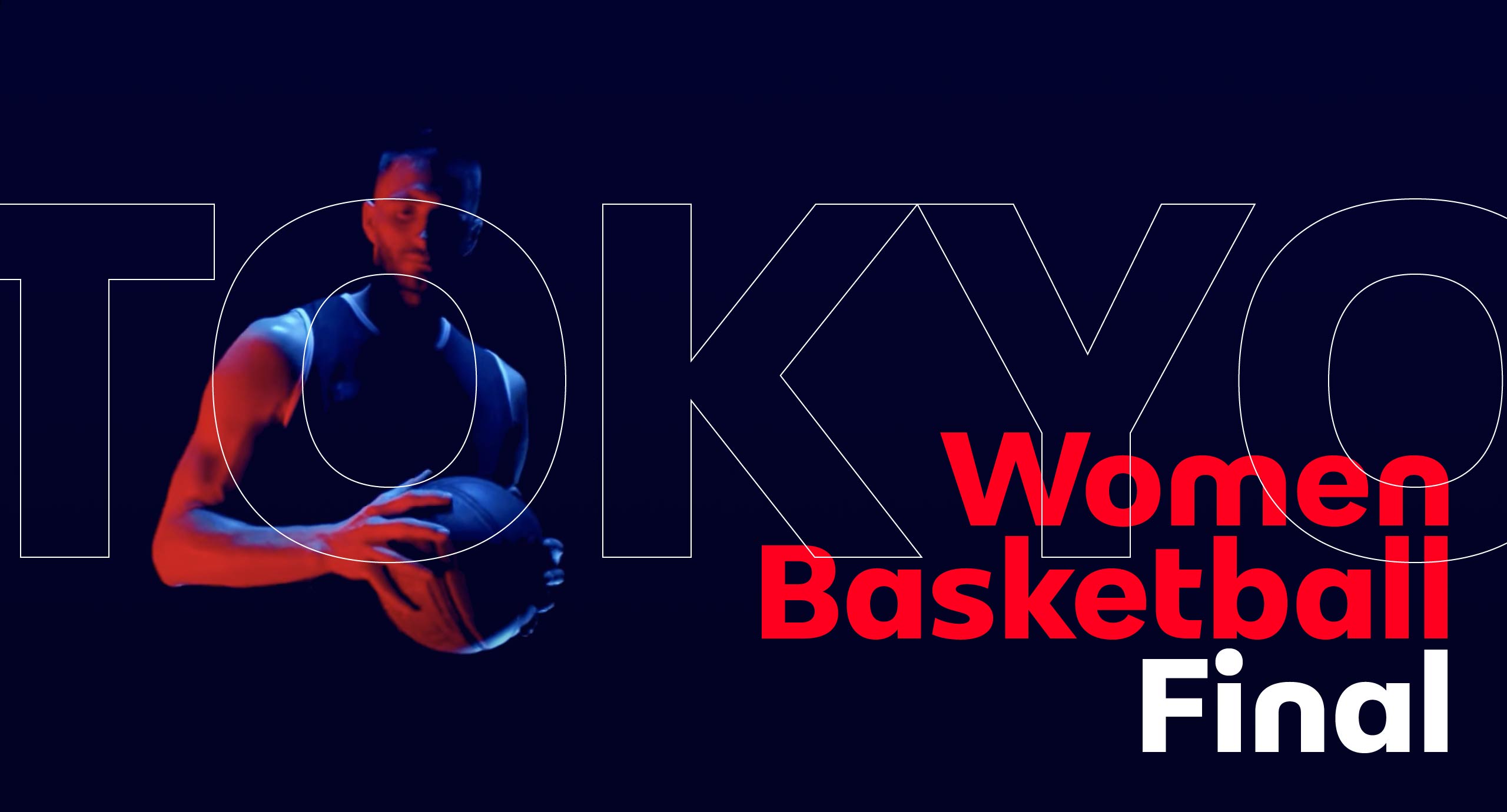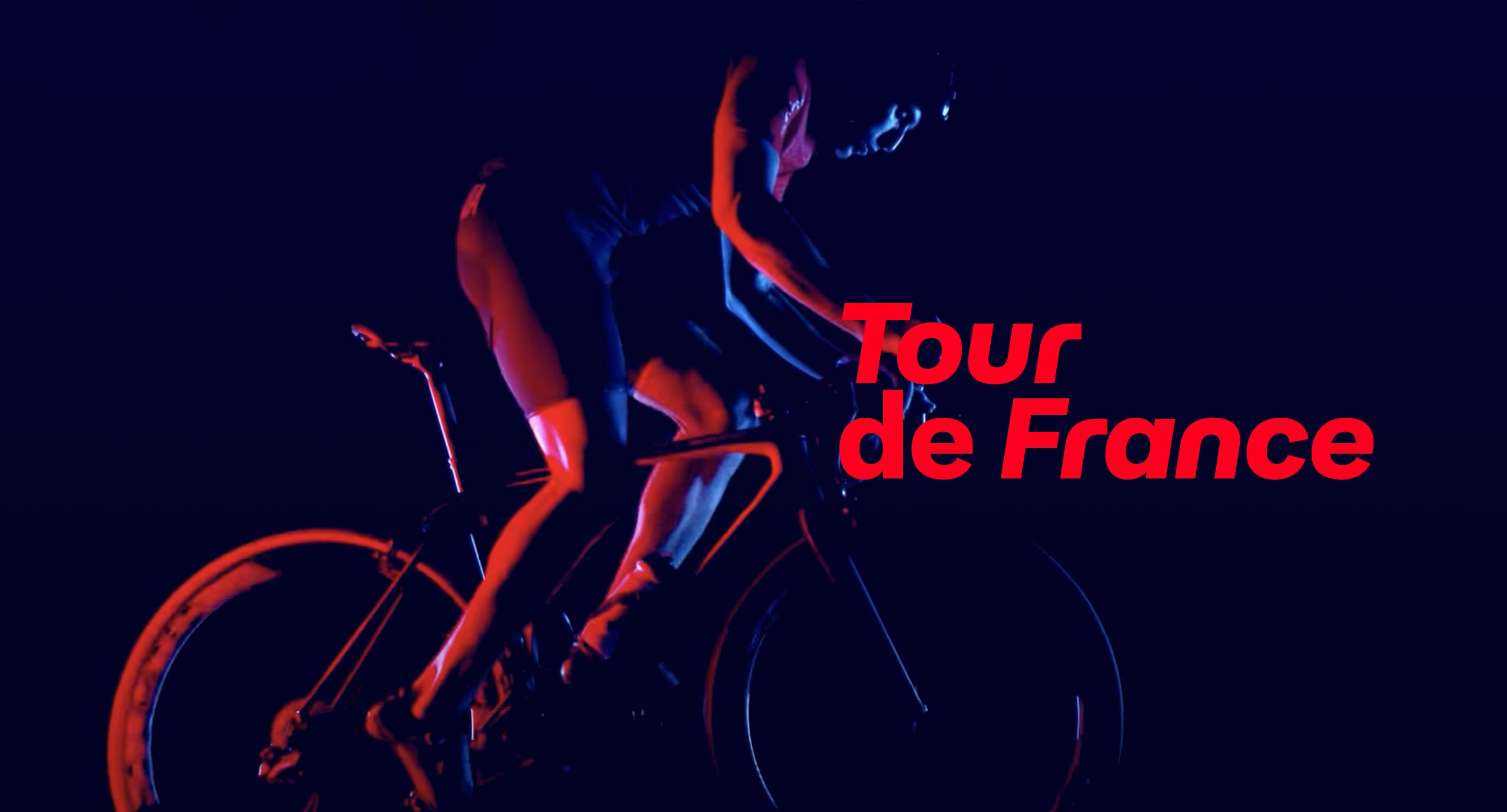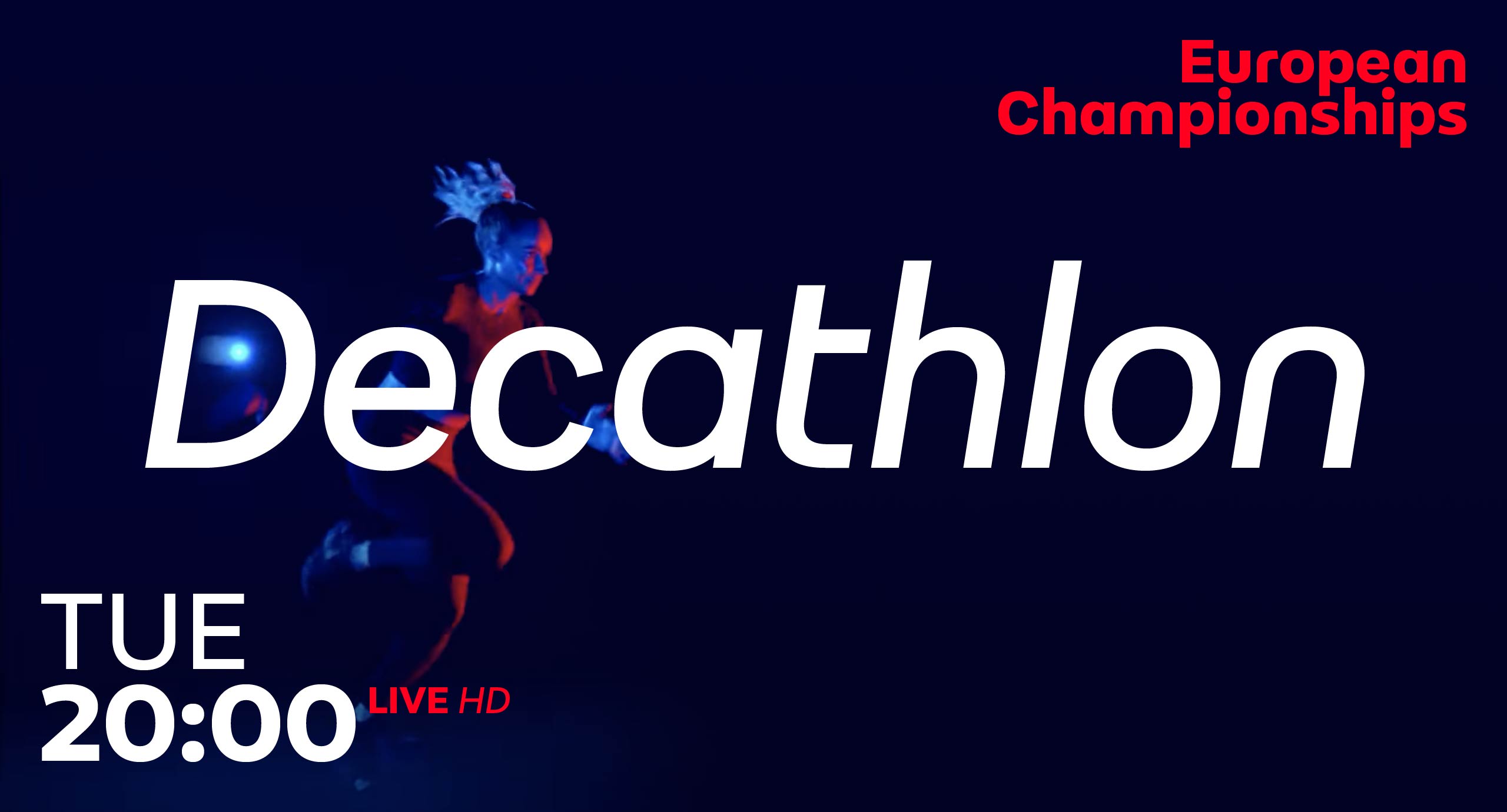
RTVS Sport
RTVS Sport is a custom typeface design specifically for use in the visual identity and broadcasting of the Slovak TV channel RTVS Šport.
RTVS Sport is a utilitarian sans-serif typeface with modern construction in two weights and italics intended for universal typesetting, especially in TV broadcasting. The characteristic elements of the design are its balanced proportions and the arched construction of the letters n, m, u, further reflected in the letters r, g, y. The italic styles evoke speed and sport dynamics. The font grabs attention when used in large sizes, but is also pleasant to read in smaller texts. For the typesetting needs in the context of TV broadcasting, special attention was paid to the design of numbers and punctuation.